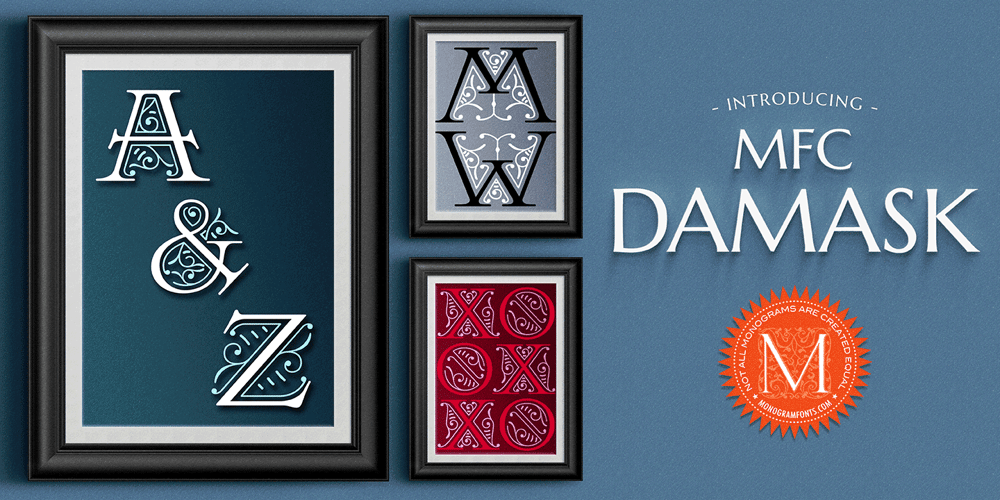
MFC Damask
MFC Damask font
MFC Damask Font Family was designed by Jim Lyles, Brian J. Bonislawsky and published by Monogram Fonts Co.. MFC Damask contains 8 styles and family package options. The inspiration source for MFC Damask is the “Oxford No. 2” typestyle from the 1893 “Cleveland Type Foundry Catalogue & Price List of Type and Materials”. The original design contained stylized numerals and smallcaps which have been normalized in our revival rendition. There are also both baseline and vertically centered smallcaps for titling and decorative monogramming use. Download and view the MFC Damask Guidebook if you would like to learn a little more. MFC Damask comes complete with both Pro and Standard format fonts. For those with programs that can take advantage of OpenType features, the Pro fonts are for you, but for others without the ability to use OpenType features, we’ve created separate fonts that make up the styles contained in the Pro font. MFC Damask is the Pro font with OpenType features to create all of the possibilities of this typeface, while the other three typefaces of this family can be used to recreate those stylings without the use of OpenType features. MFC Damask Basic & MFC Damask Flourish work together to create the Monogram and Initial Styling created with MFC Damask, and MFC Damask Titling can be used to create the traditional baseline styled typesetting of MFC Damask.